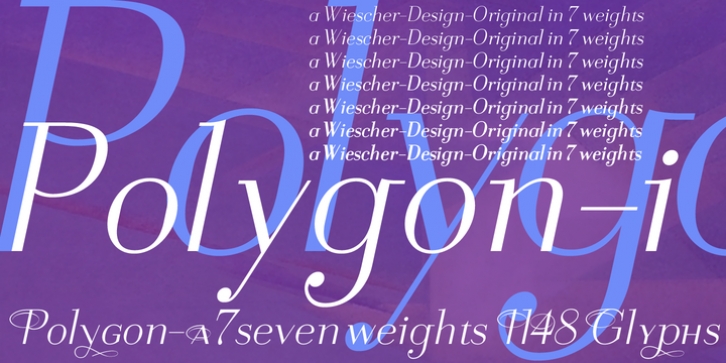
Publisher: Wiescher Design
Polygon are unique fonts with a modern character based on the rational thinking of the enlightenment with its classic forms and timeless elegance. This first installment will be followed by more extreme and by less extreme designs on the same design basics. You get many embellished characters in each font. The font has over 1100 glyphs, but you need to have Open-Type-Savy software to use the font to its full extend. These fonts have been designed to work great as bodycopy, the heavier weights are meant to be used for smaller sized typesetting and the lighter ones should be used when the sizes get bigger. Enjoy!